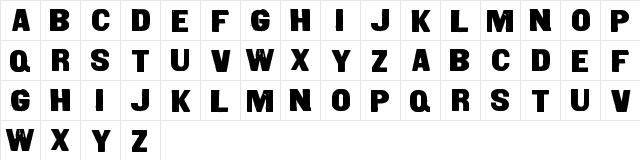
qxi Bold Font Preview
qxi Bold
qxi Bold Font Details
Design Context for qxi Typeface
qxi offers clean, dependable letterforms without strong stylistic allegiance, making it a practical choice for designers who need flexibility. Its bold stroke weight gives it real presence on the page.
Pro Tip: Use qxi in both headline and body roles to test its range before committing to a single application.